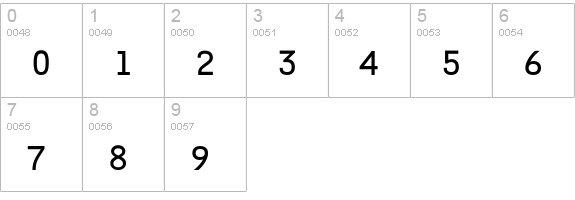
Introducing TarzanaWide, a captivating and versatile font that is sure to make a bold statement in any design project. With its wide and commanding letterforms, this font exudes confidence and adds a touch of sophistication to any text. TarzanaWide is the perfect choice for those seeking a font that effortlessly combines elegance with a modern edge. Its clean lines and generous spacing make it highly legible, ensuring that your message is conveyed with clarity and impact. Whether you are designing a logo, creating eye-catching headlines, or crafting a stylish branding project, TarzanaWide is the ideal font to elevate your work to new heights. Its unique and striking aesthetic will captivate the attention of your audience, leaving a lasting impression. What sets TarzanaWide apart is not just its stunning visual appeal, but also the fact that it is freely available to download at FontsMarket.com. That's right, you can now unleash your creativity and enjoy the freedom to use this exceptional font in any personal or commercial project, without any limitations. So why wait? Download TarzanaWide today and unlock a world of design possibilities. With its timeless elegance and accessibility, this font is a must-have for any designer or typographer looking to create impactful and unforgettable visuals. Experience the power of TarzanaWide and take your designs to the next level.